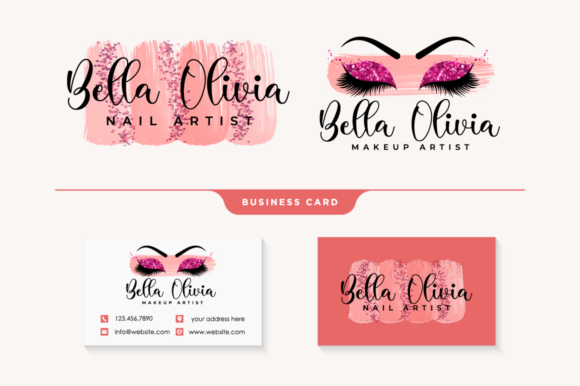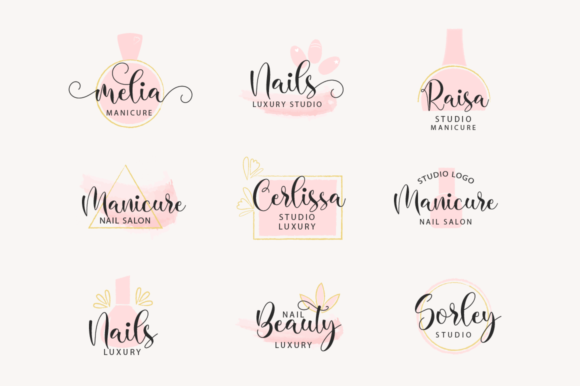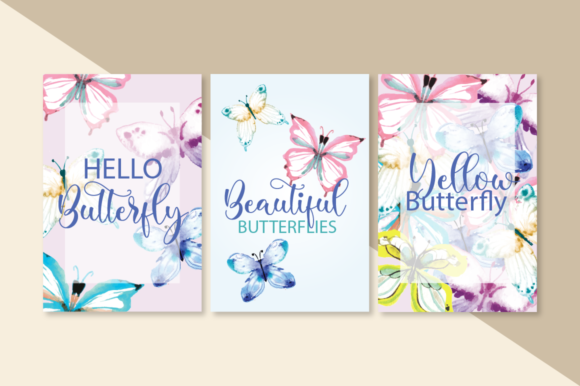
Introduction to Butterfly Garden Font
Butterfly Garden is a beautiful and elegant script font.
Its modern and classy look makes it the perfect font for creating outstanding DIY projects This font is PUA encoded which means you can access all of the glyphs and swashes with ease.
Key Features of Butterfly Garden Font